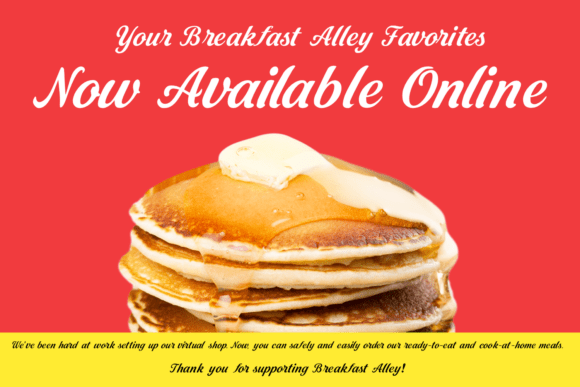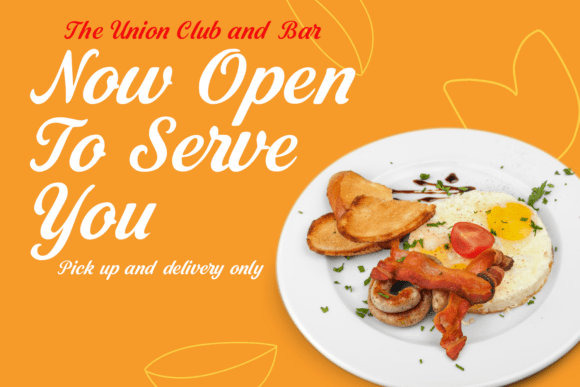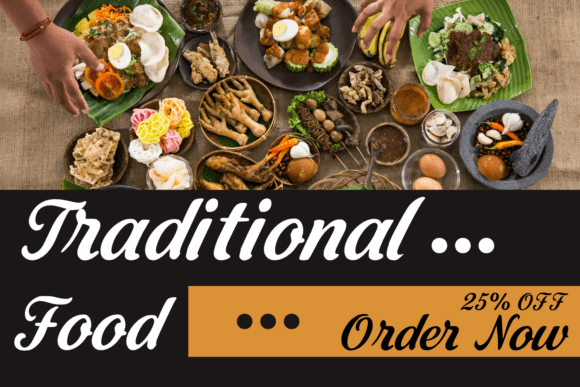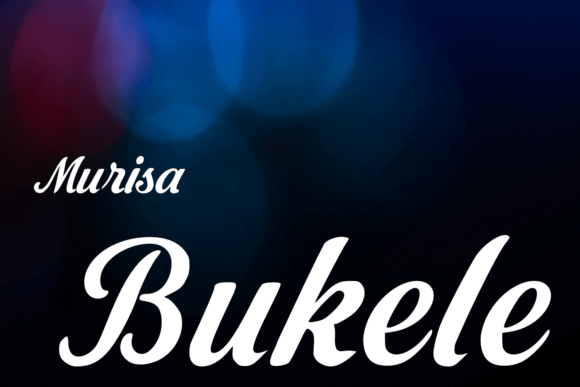
Introduction to Murisabukele Font
Murisa Bukele Typeface — Where Elegance Meets Expression Step into a world of flowing beauty with Murisa Bukele typeface, a refined cursive-style font crafted for creators who crave sophistication and flair.
Every stroke is a dance of grace, echoing the charm of traditional calligraphy while embracing modern versatility Designed with multilingual artistry in mind, Murisa Bukele supports Eastern European characters, making it a perfect choice for global projects that demand both style and substance.
Key Features of Murisabukele Font
Why Choose Murisabukele Font?
Murisabukele Font offers exceptional quality and versatility, making it a valuable addition to your design toolkit. Whether you’re creating for personal projects or commercial use, Murisabukele Font delivers professional results.